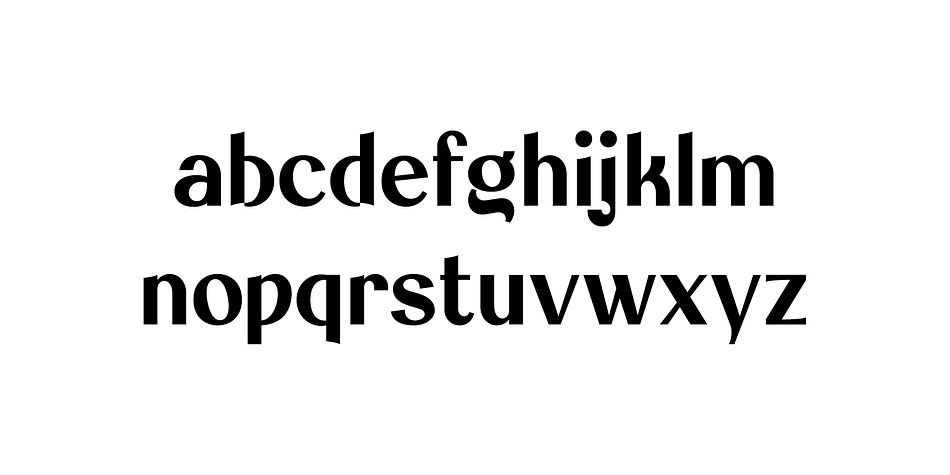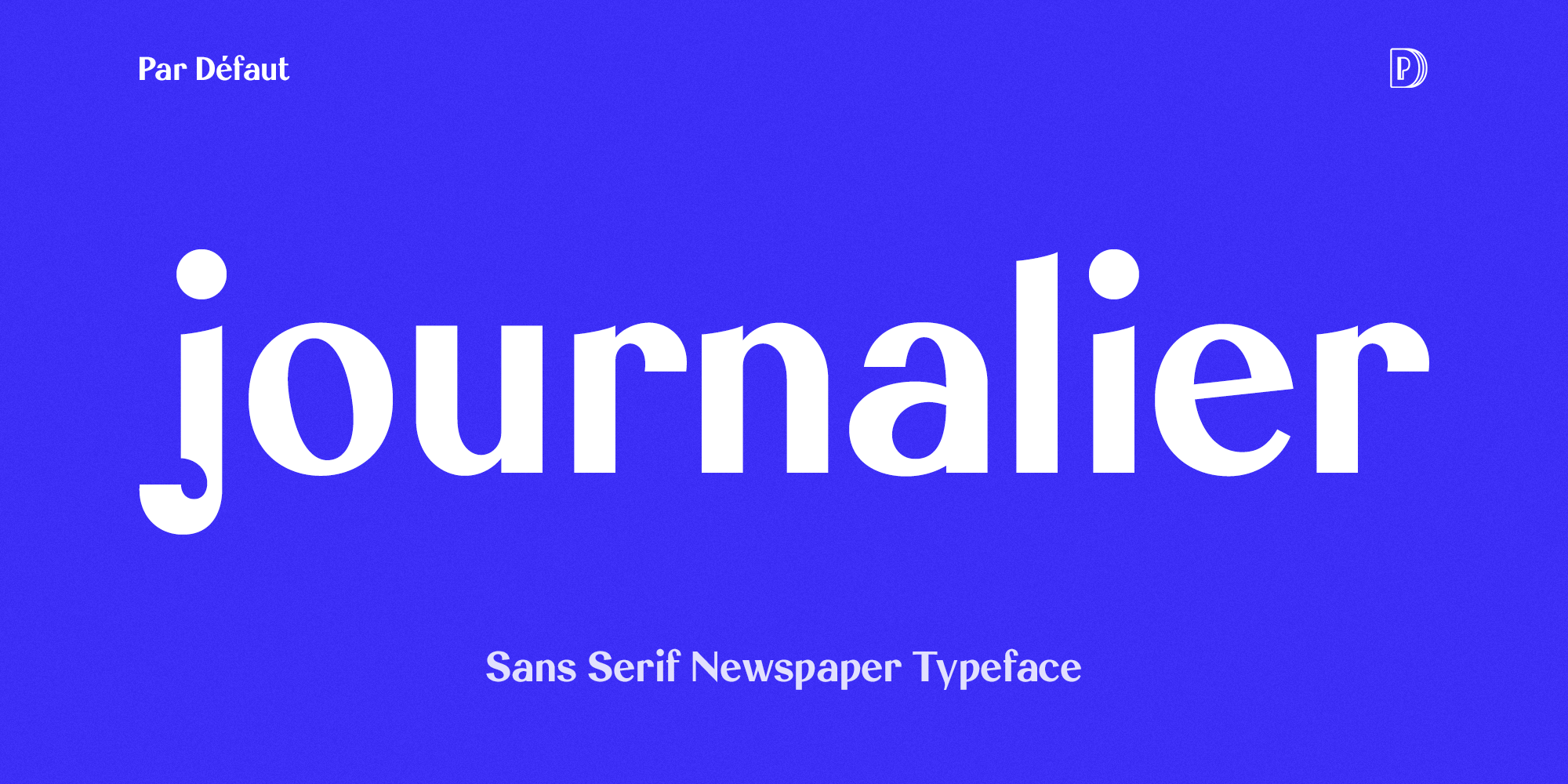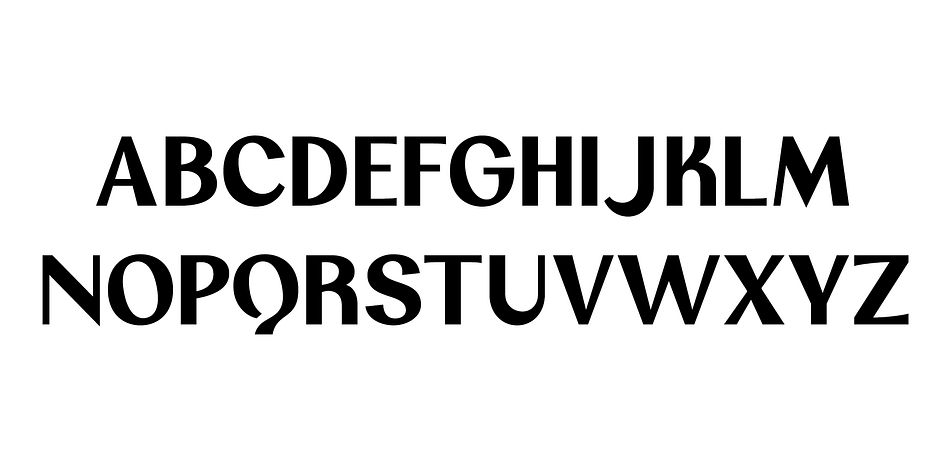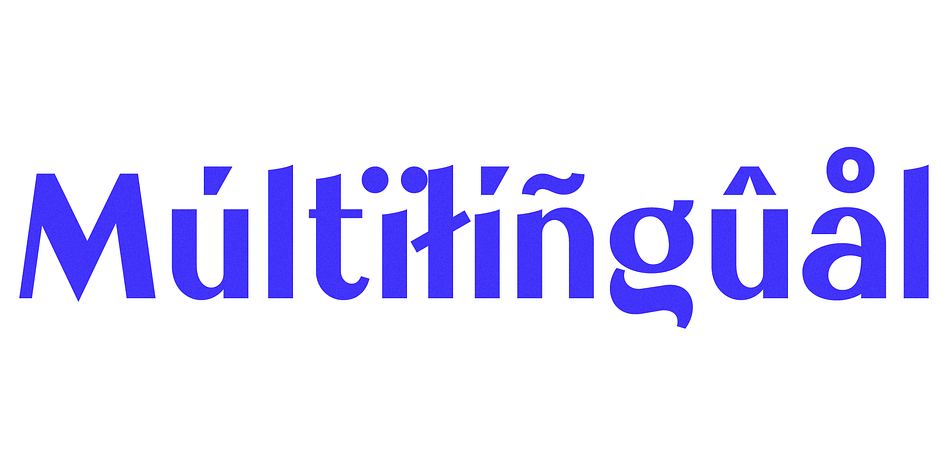
Journalier
Journalier is a sans serif font family published by Par Défaut.
Journalier is display sans serif typeface
Perfect for Title and Heading, compose more than 300 characters, multilingual and OpenType features (Numerator, Denominator, Fraction, Superscript, Subscript, OldStyle Figure, Tabular Figure with OldStyle + Currency, Ordinal Lowercase & Discretionary Ligature)